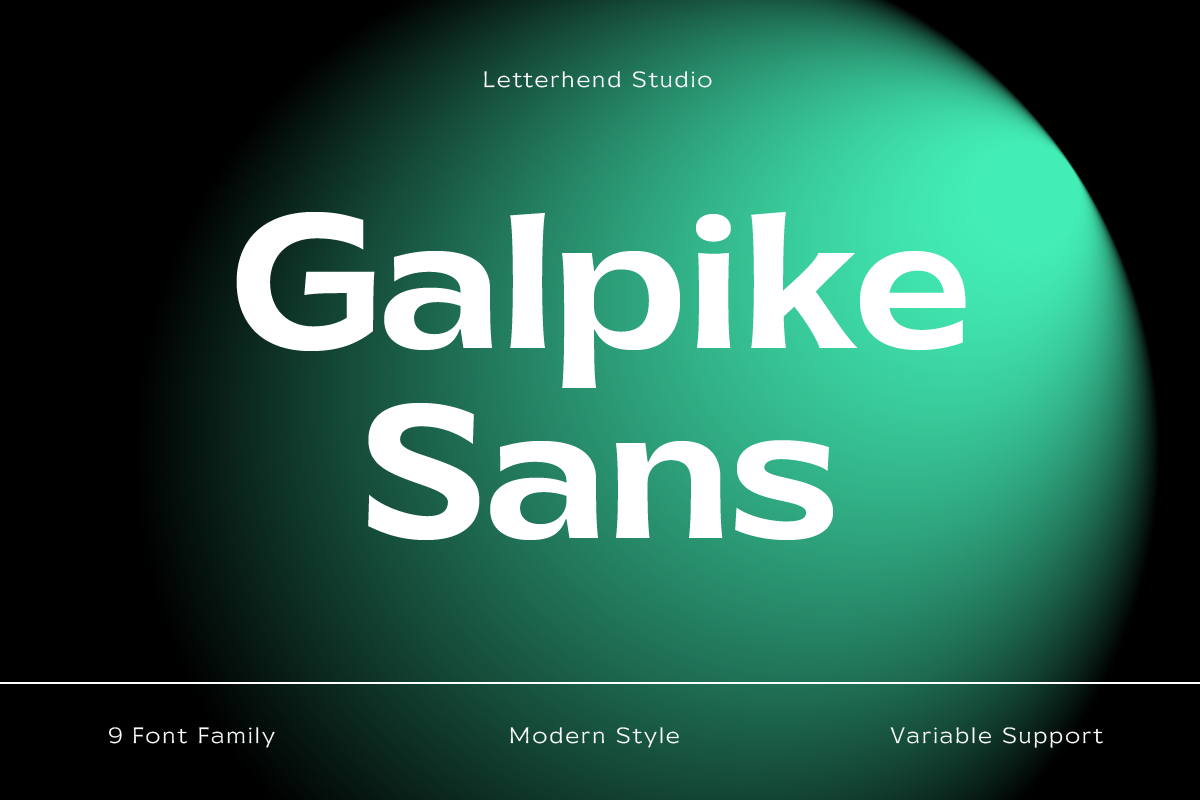
Galpike Font
Perfect for branding, headlines, posters, packaging, and editorial designs.
The Galpike Font excites designers with its modern, clean lines and versatile style that effortlessly adapts to a variety of creative projects.
The Galpike Font Free Download is a sleek sans-serif typeface designed for clarity and impact, making it ideal for corporate branding, digital media, and print layouts.
One of the key strengths of Galpike Font is its balance of professionalism and approachability, ensuring your message is both strong and welcoming.
In branding, Galpike communicates modernity, reliability, and simplicity. It pairs perfectly with minimalist designs, bold color schemes, and clean layouts to create a polished and memorable identity.
For digital projects, this font enhances website headers, social media posts, and digital advertisements, giving your content a fresh and contemporary look.